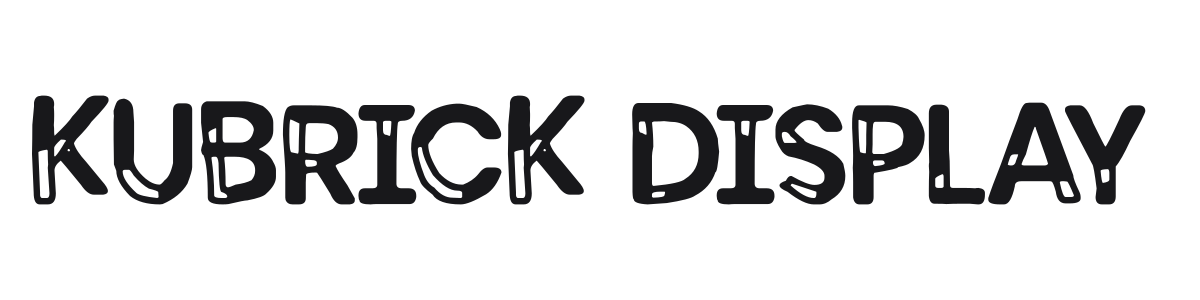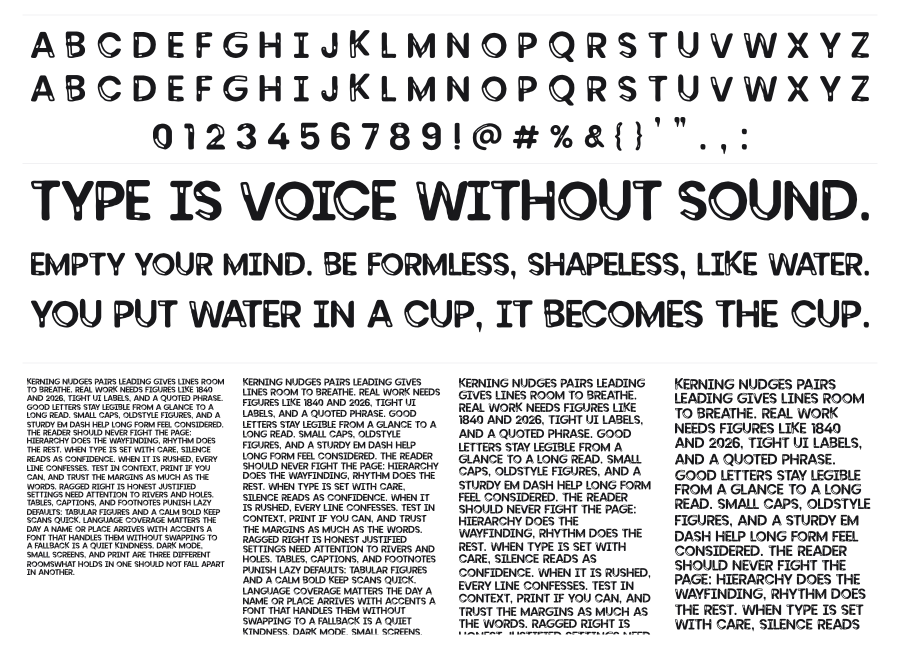
Kubrick Display
Kubrick Display is a bold novelty display face from Woodcutter Manero with a distinctive gimmick: irregular inline cuts slice through each thick character like the letters have been peeled apart. The effect is rough, graphic, and a little anarchic, sitting somewhere between street signage and zine design. It carries a strong personality at large sizes and is best used sparingly.